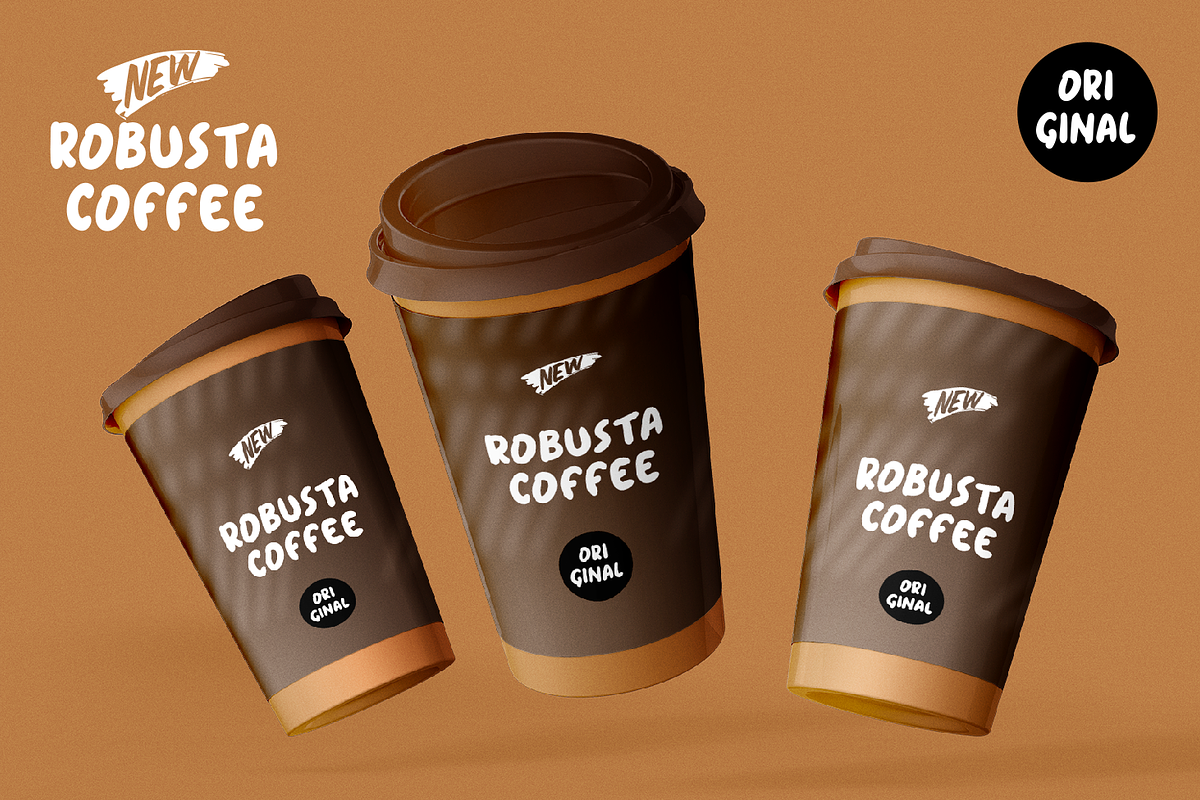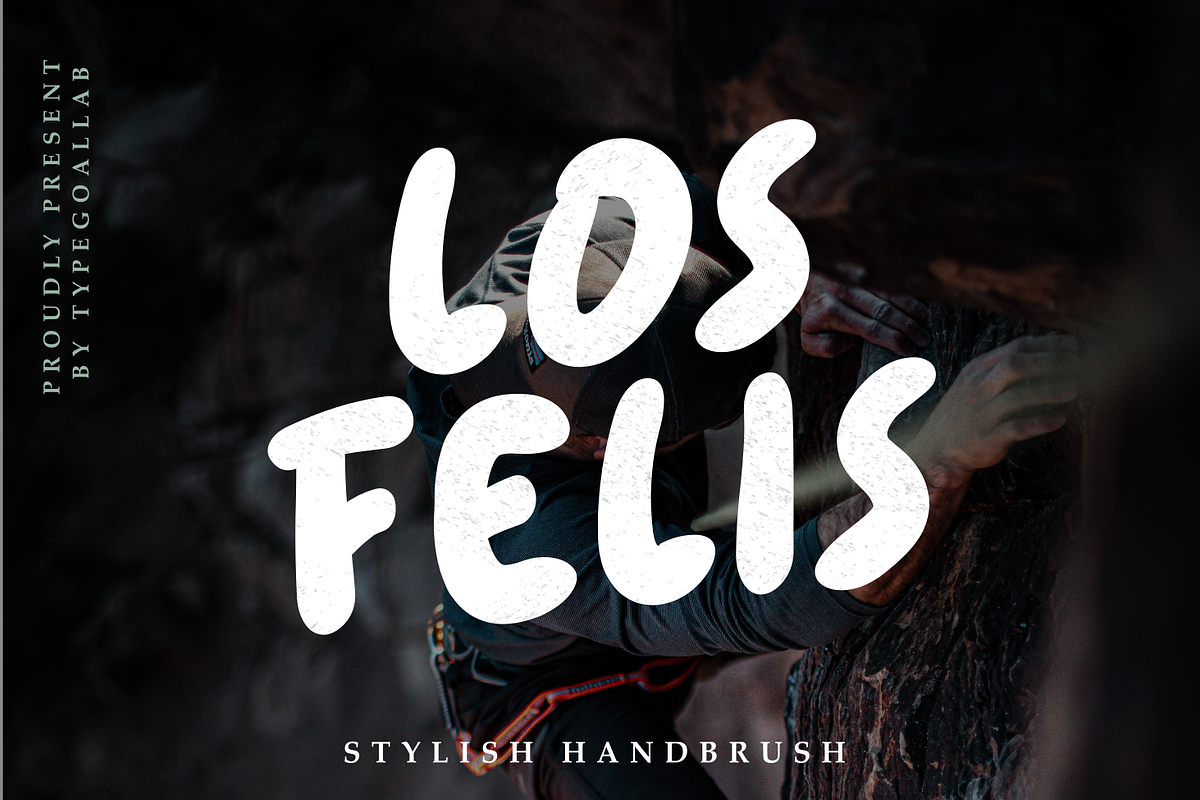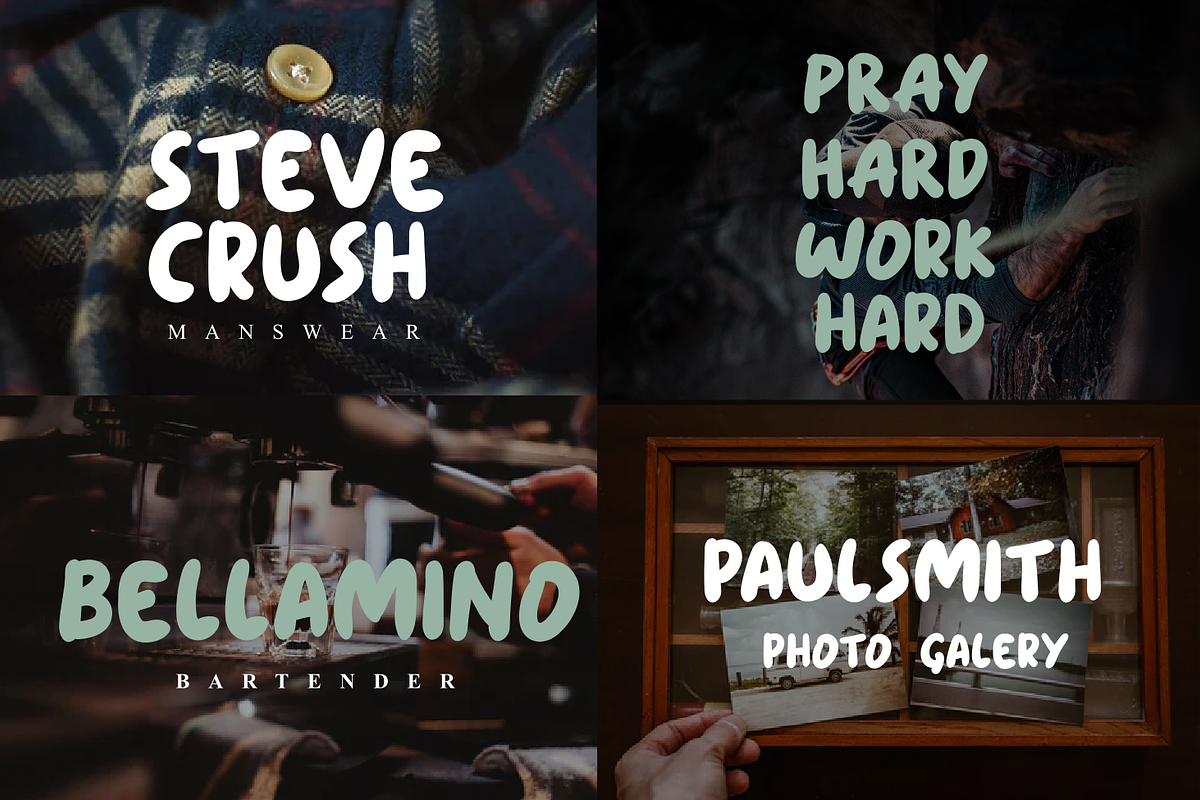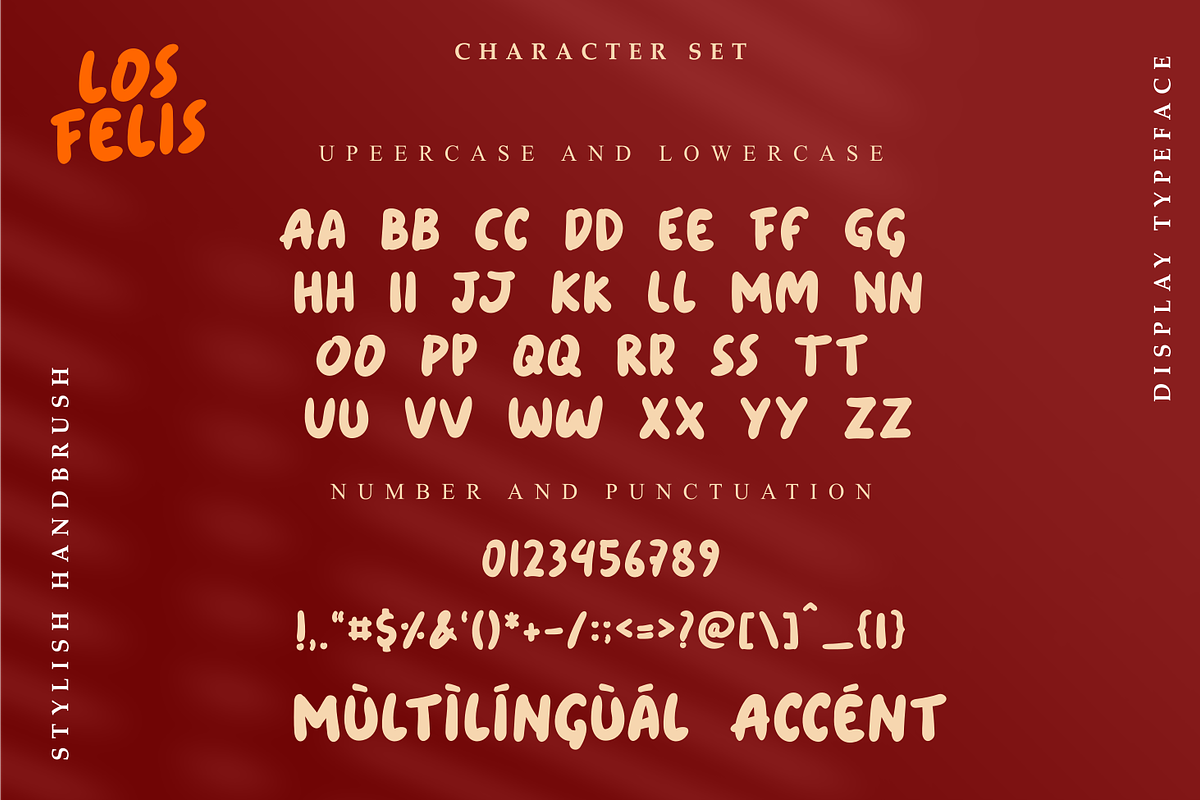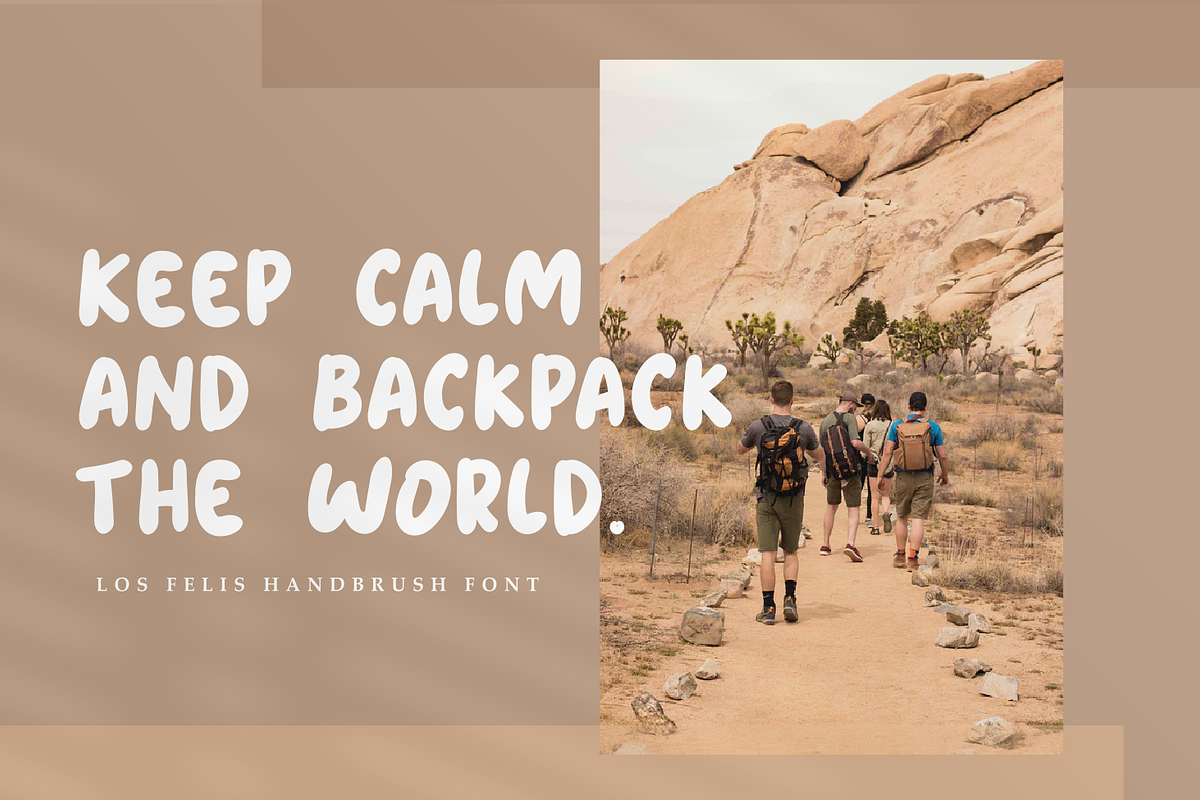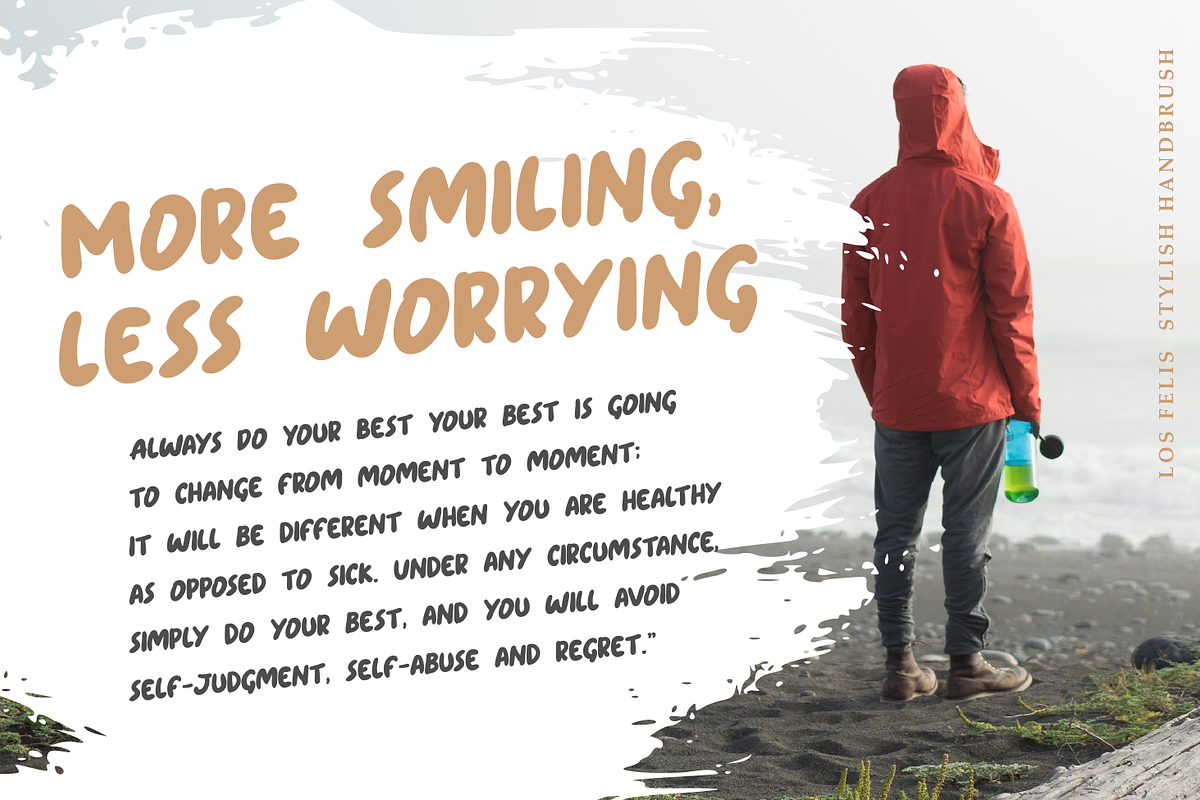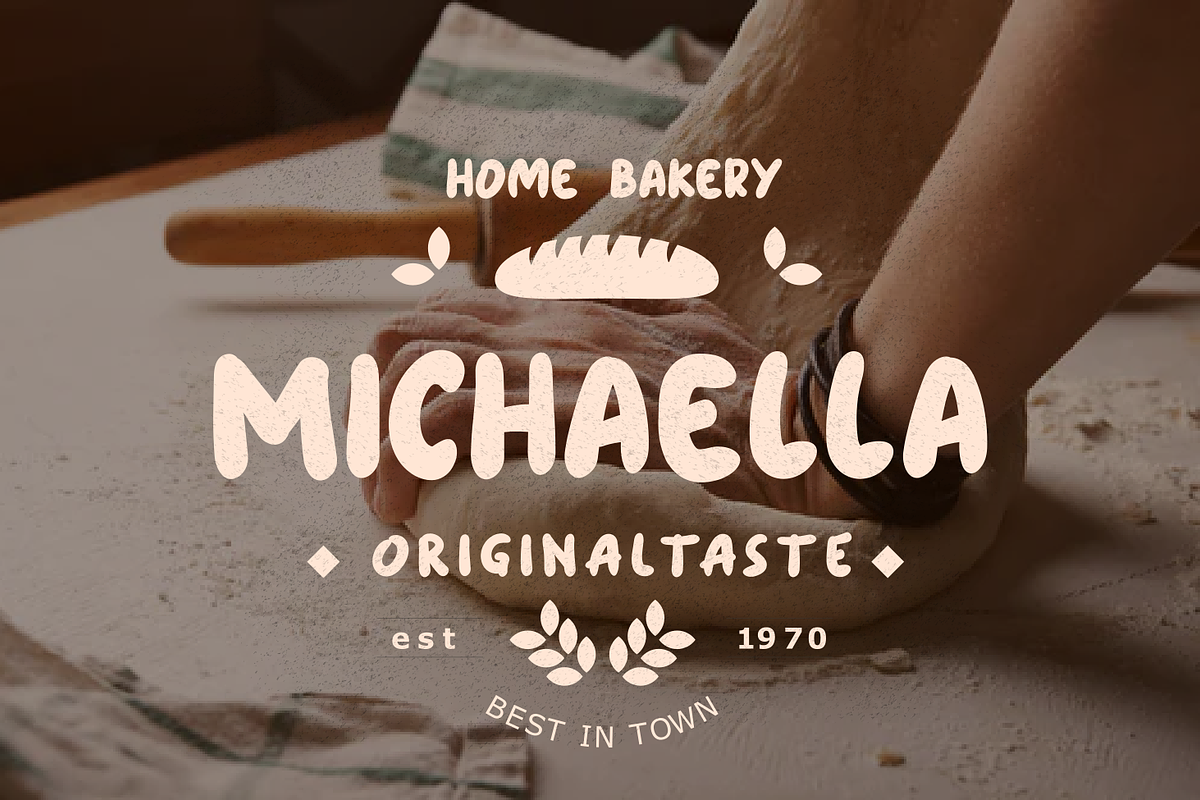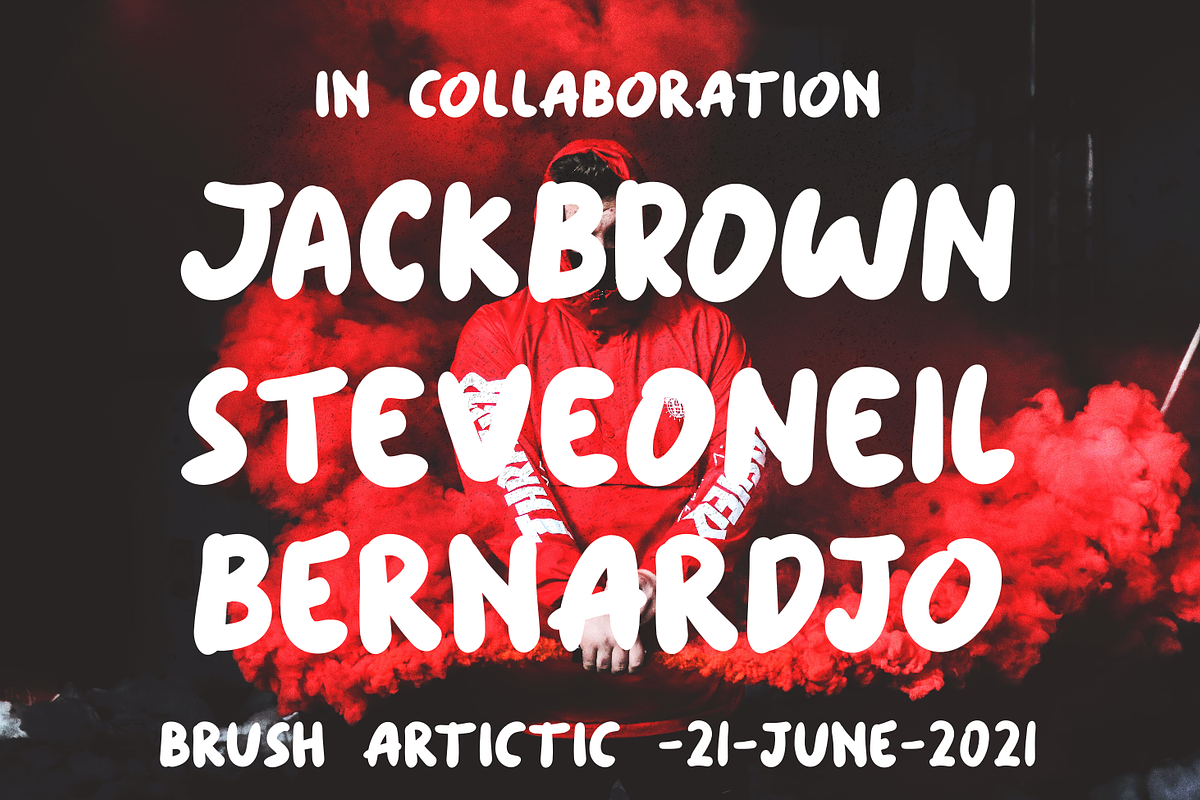
Los Felis Fun Display
Los Felis Fun Display is a very playful display typeface. This font is perfect for all your craft projects that require a sense of playfulness and joy. This font has a playful look and is perfect as a display font.
Los Felis Fun Display is perfect for branding projects, logo, wedding designs, social media posts, advertisements, product packaging, product designs, label, photography, watermark, invitation, stationery and any projects that need handwriting taste.